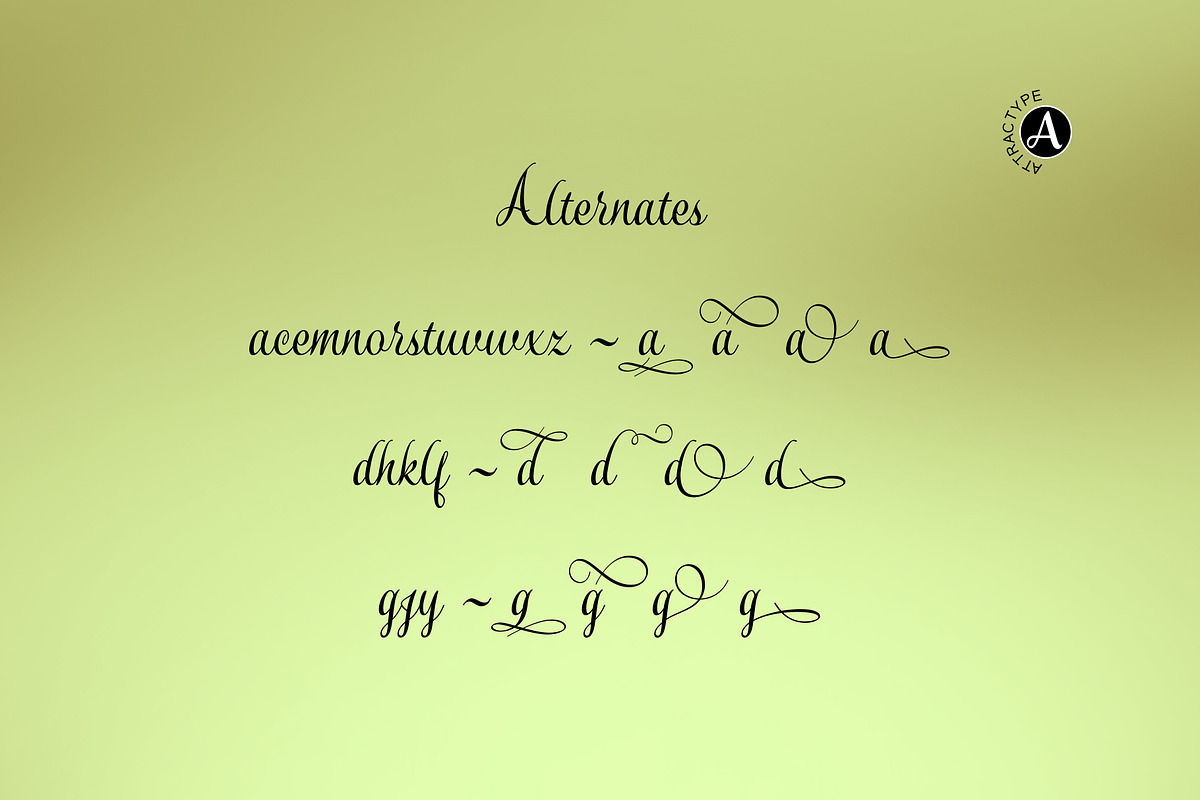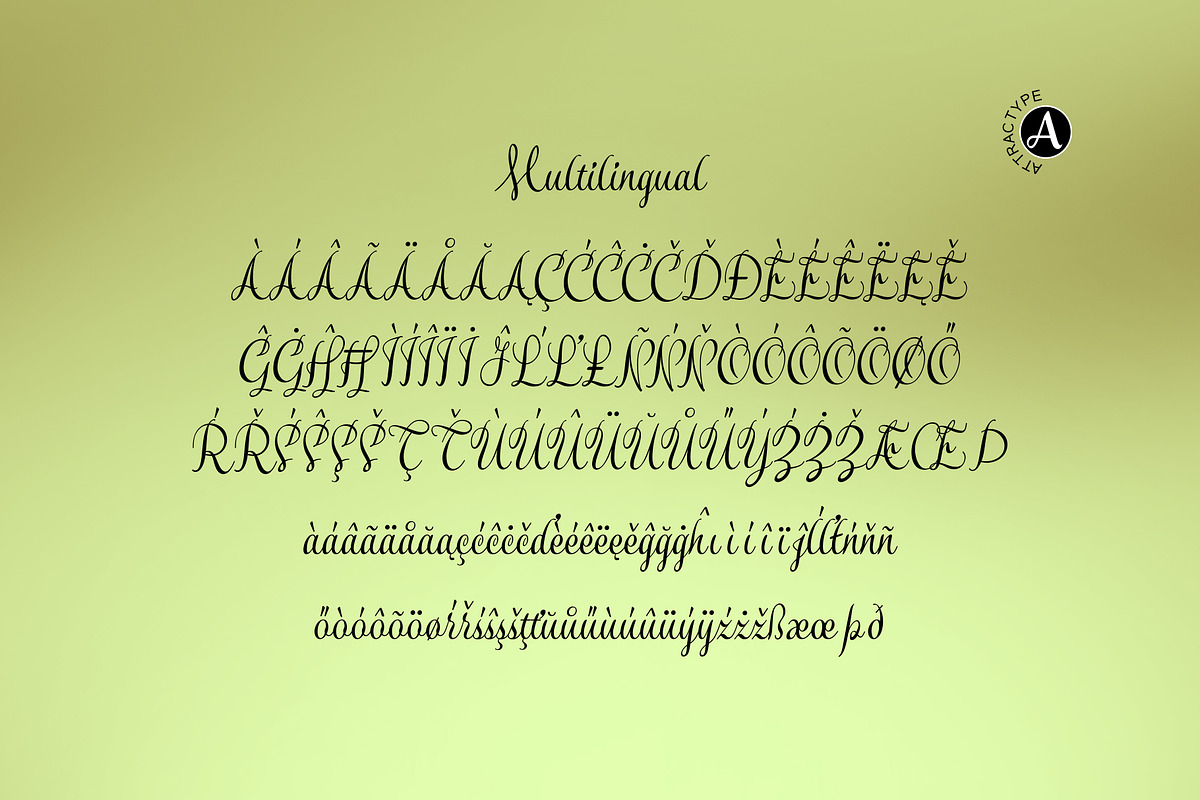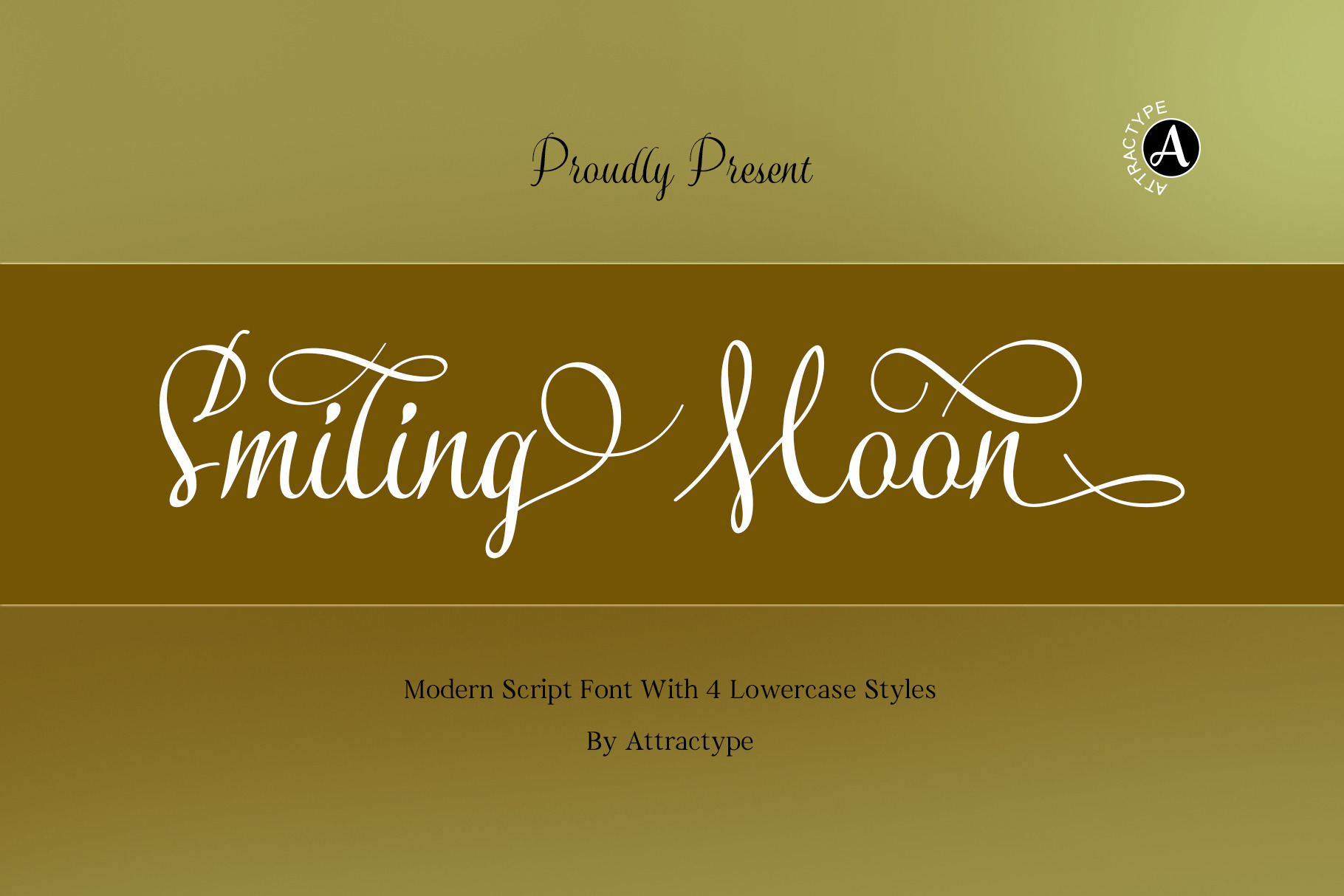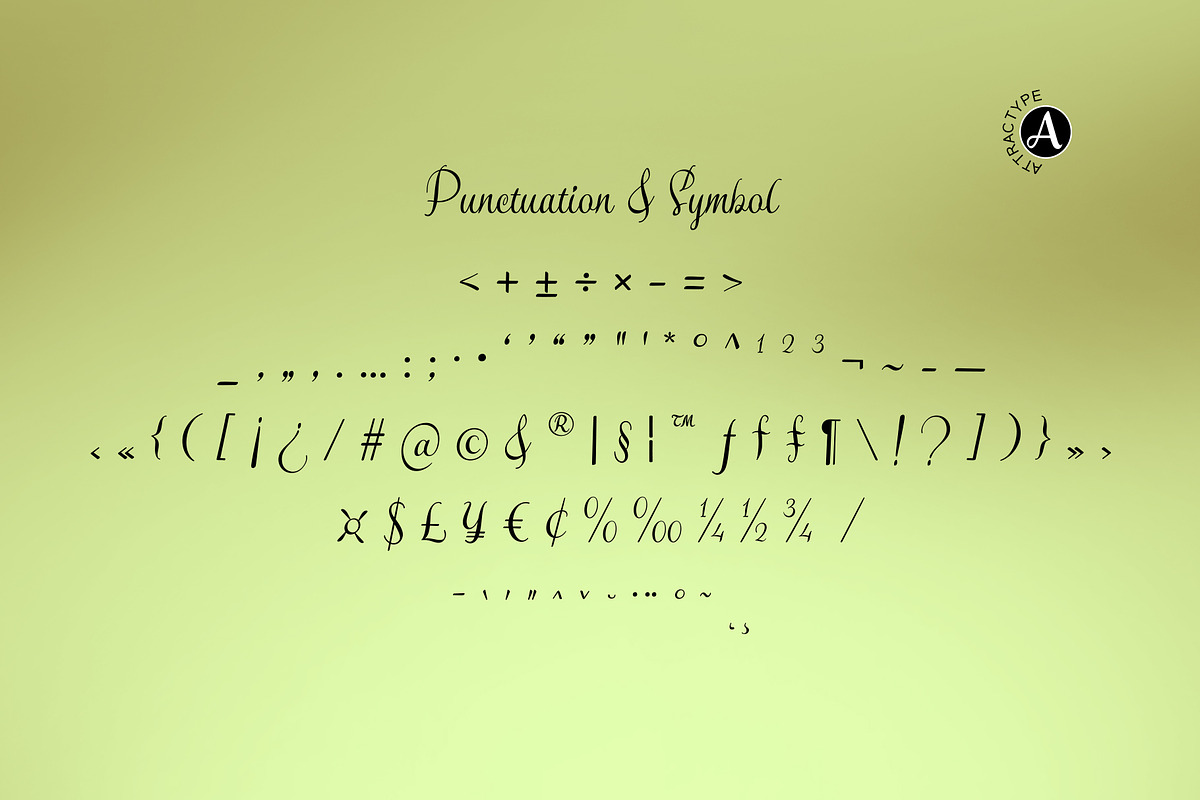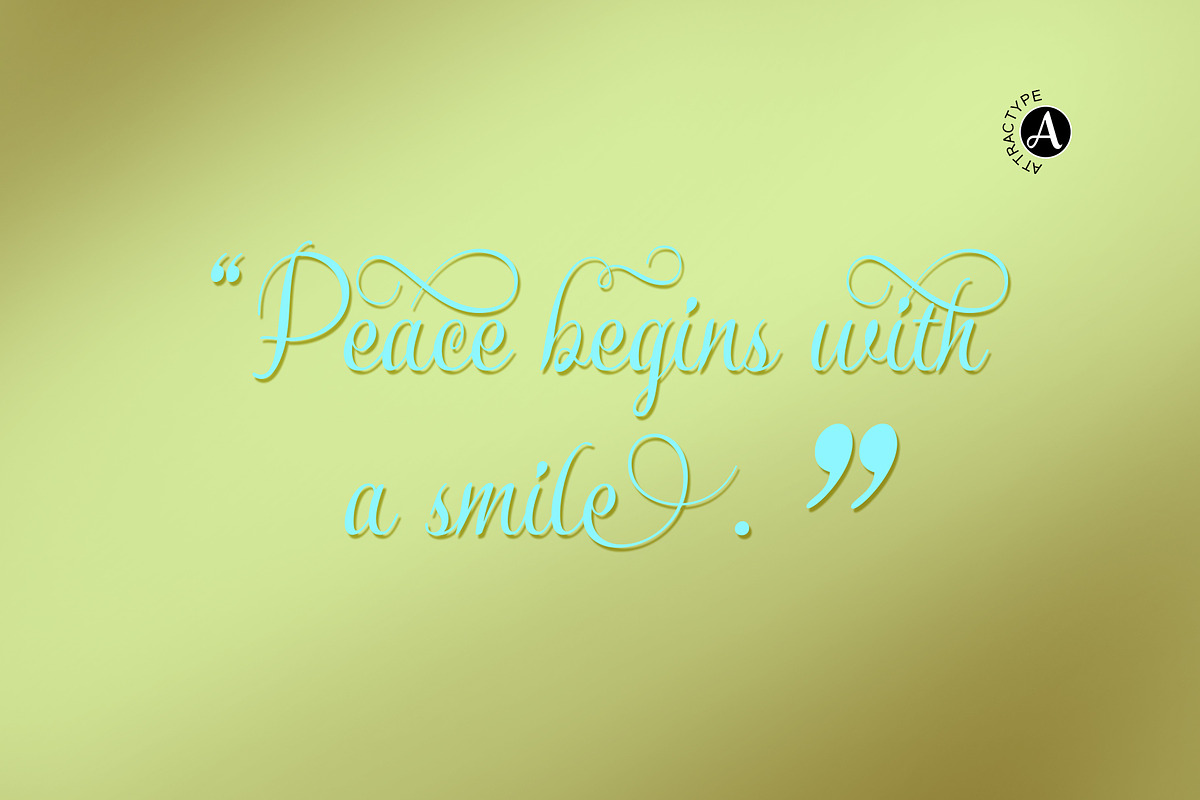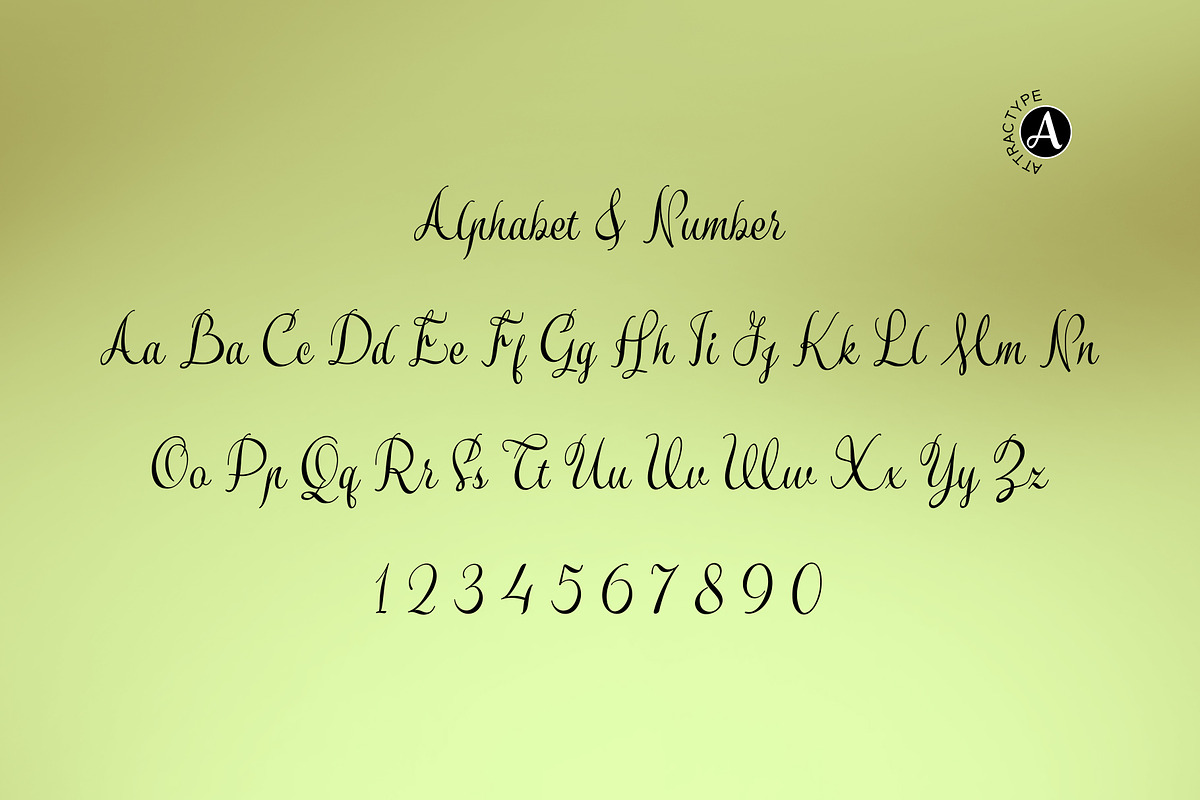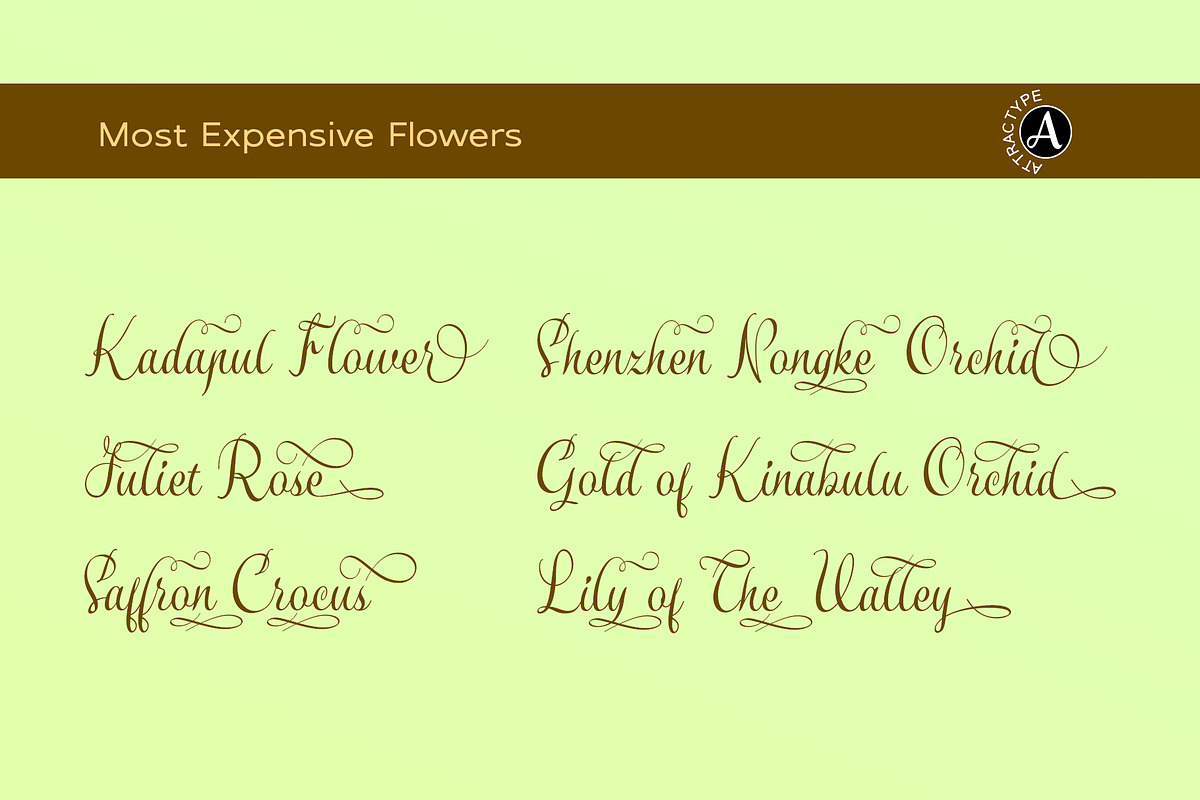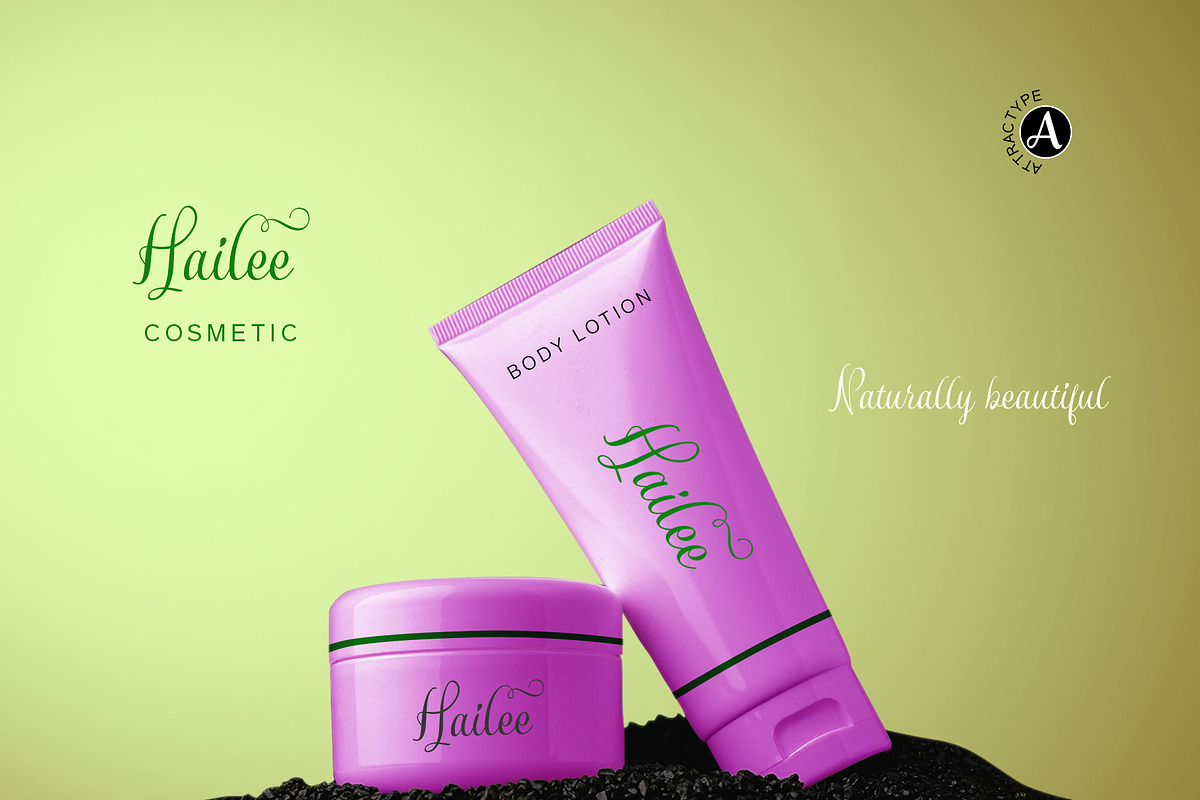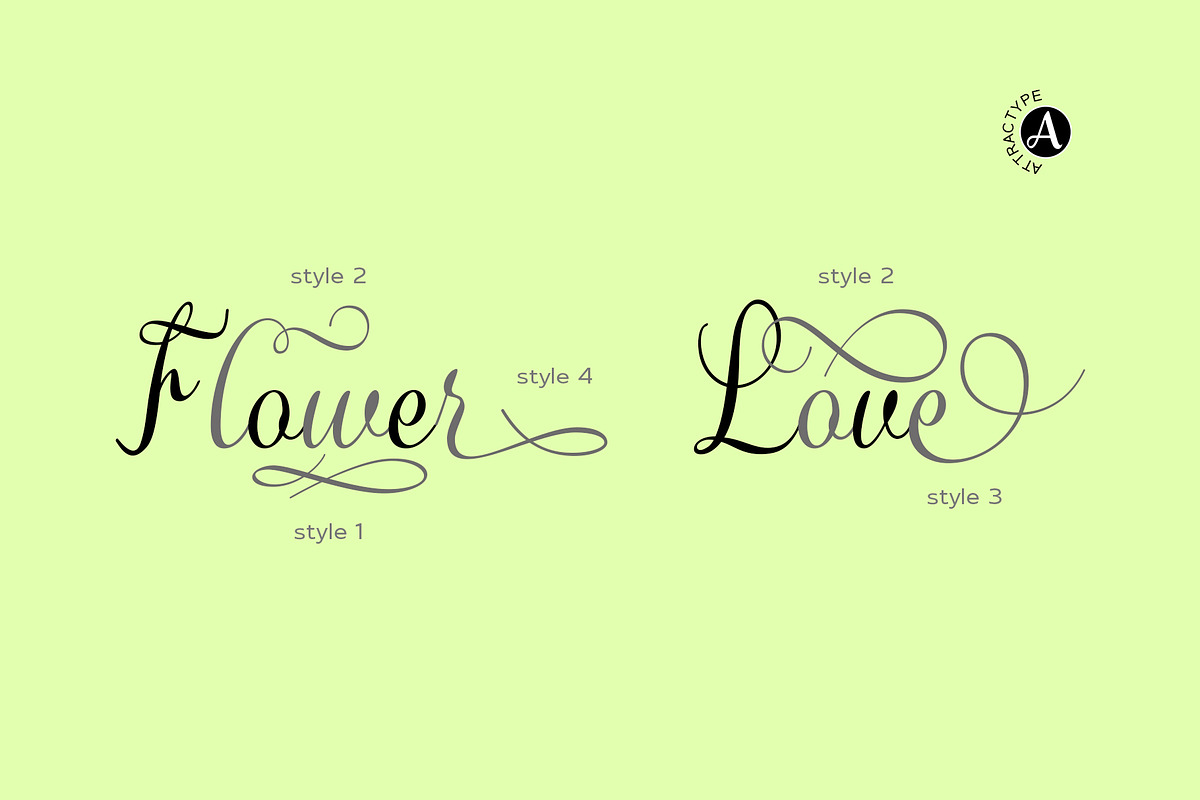
Smiling Moon - Modern script font
Smiling Moon is a modern script font with four styles of lowercase letters. Its sleek and easy-to-read appearance makes this font suitable for professional branding, logotypes, invitations and various other creative projects.
4 Alternates in lowercase letters can be accessed directly through the ligature feature by including a combination of circumflex (ˆ) and numbers 1 to 4. example: a^1 = a ss01 a^2 = a ss02 a^3 = a ss03 a^4 = a ss04
Smiling Moon contains all uppercase and lowercase characters, punctuation, symbols and multi-language support.